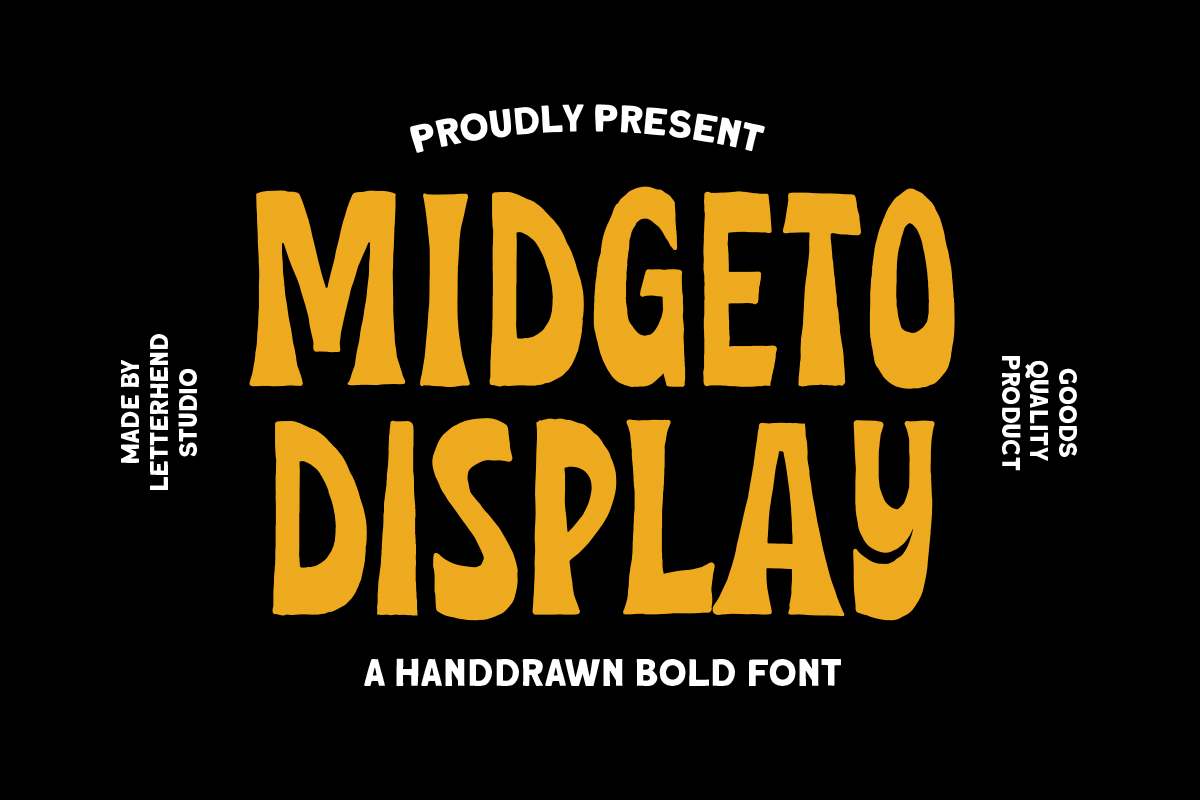
Midgeto Font
This compact and versatile typeface is perfect for mobile app interfaces, small device displays, compact packaging design, pill bottle labels, travel-sized product branding, micro-business logos, space-efficient signage, minimalist design projects, and condensed layout applications that require maximum readability in limited space.
Midgeto Font brings excitement to design projects with its ingenious space-saving design and remarkable clarity despite its compact proportions. The font features carefully optimized letterforms that maximize readability while minimizing space requirements, making it perfect for modern digital applications where screen real estate is precious. Its efficient character structure and smart spacing make it an exceptional choice for brands that need to communicate effectively within spatial constraints without sacrificing visual impact.
The Midgeto Font family includes various space-efficient styles: Ultra Condensed, Regular, Medium, Bold, and Expanded versions. Each variant maintains the font's distinctive compact character while providing designers with flexibility for different space-constrained applications. The family also features optimized numerals, space-saving punctuation, efficient ligatures, and compact symbols that enhance the overall space-conscious design approach.
The font's space-optimization excellence includes precision-engineered character spacing, superior small-size readability, and advanced hinting that ensures crisp rendering across all digital devices. Whether you're designing mobile applications, compact packaging, or space-limited signage, this font delivers the efficient communication that modern brands require in an increasingly space-conscious world.
For creative professionals working with space-constrained projects and mobile-first designs, this font represents an invaluable solution for creating effective micro-communications. Its versatile nature allows it to maintain readability while dramatically reducing space requirements across all applications. Download this exceptional typeface today and discover how intelligent typography can transform your space-limited projects into highly functional designs that prove size doesn't compromise effectiveness or visual appeal.